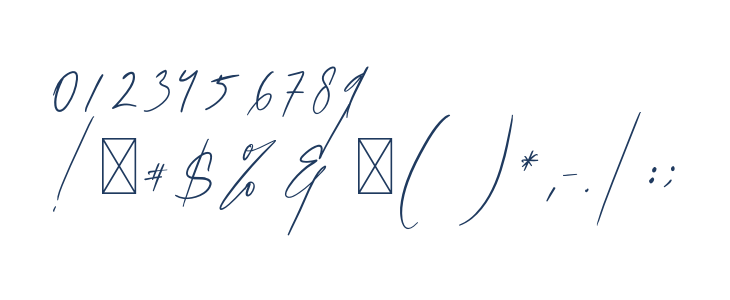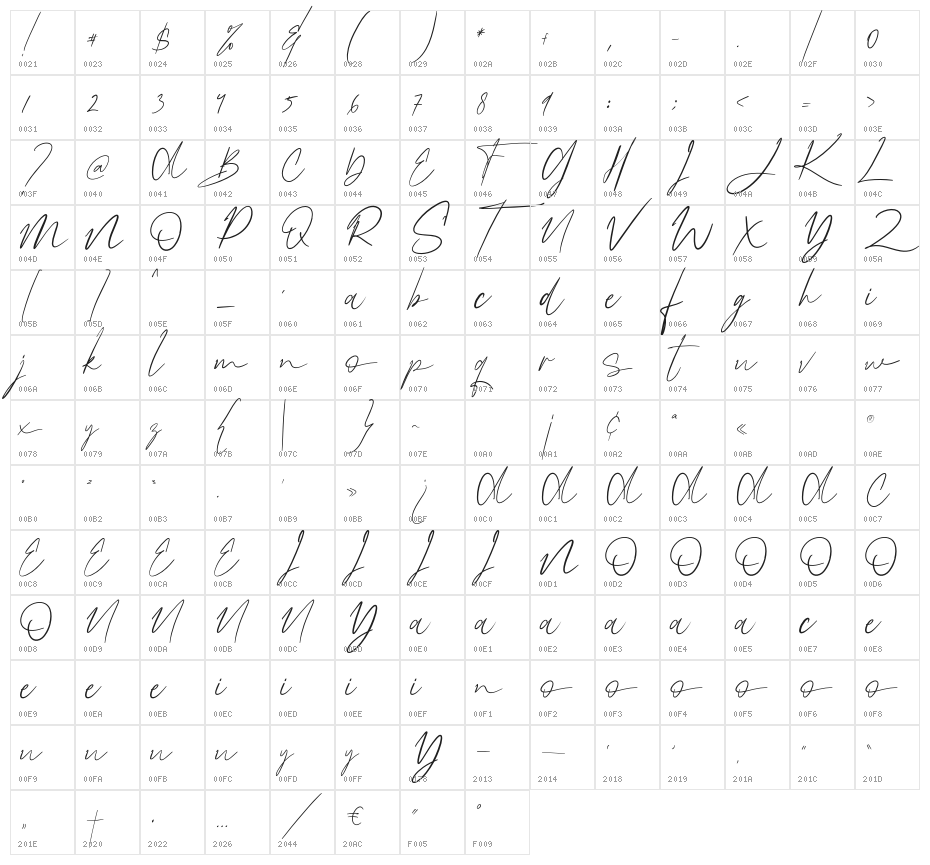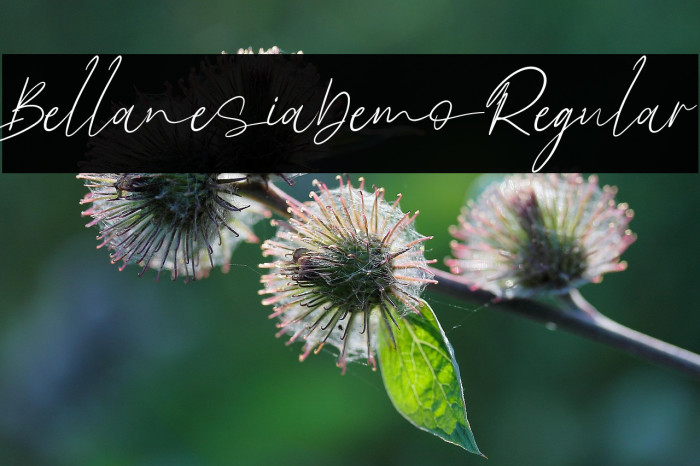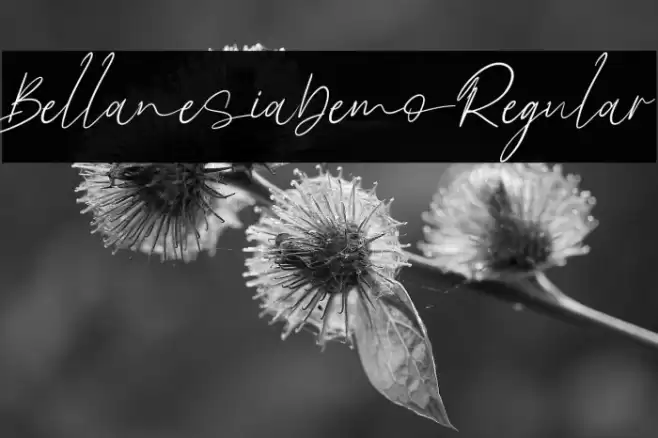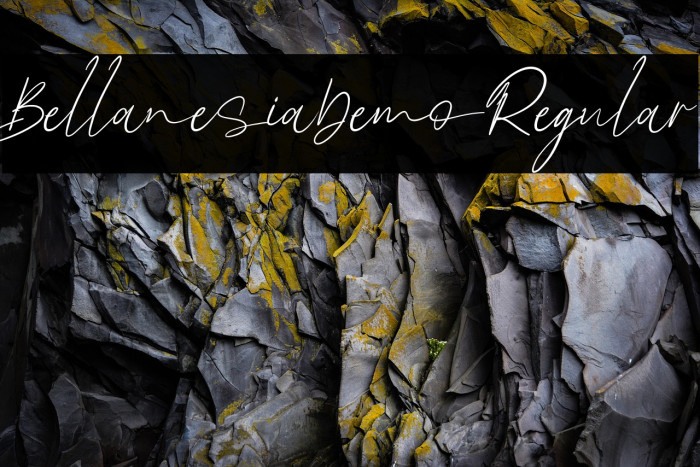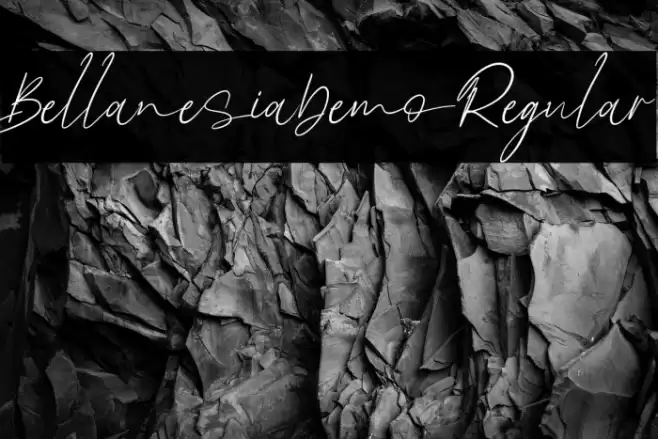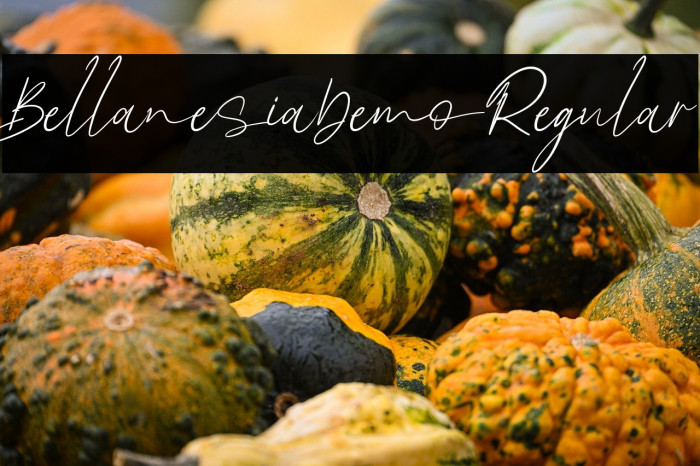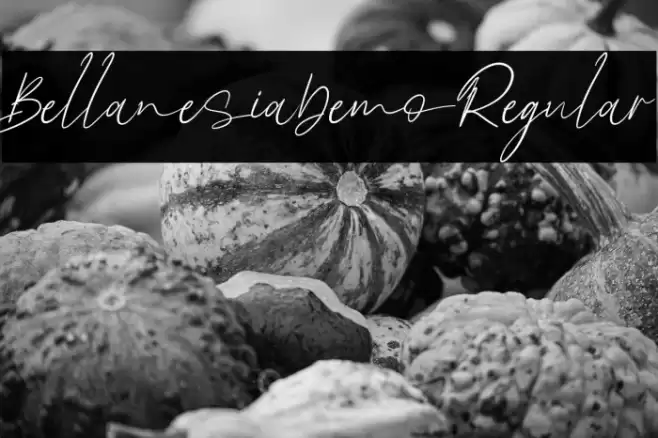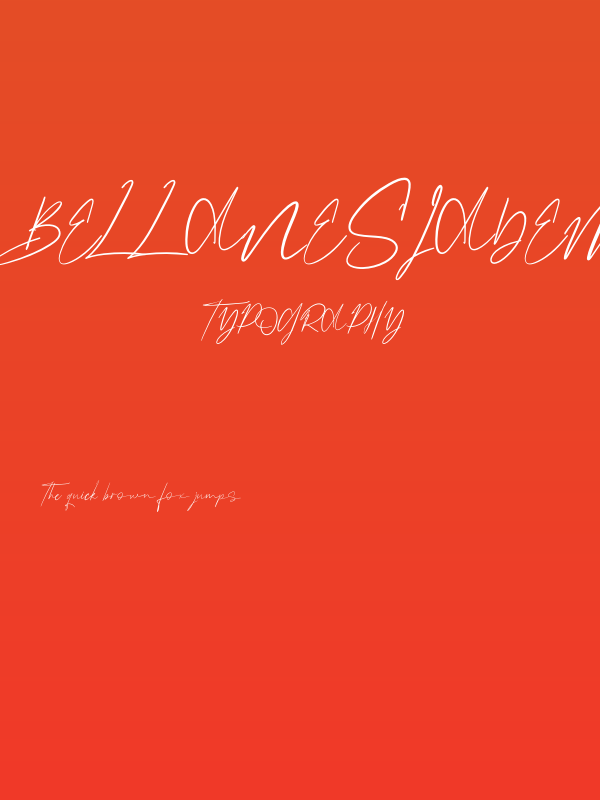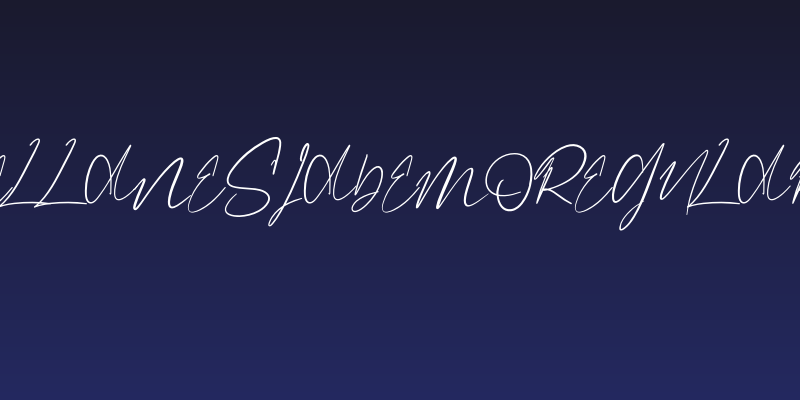
BellanesiaDemoRegular Font
BellanesiaDemoRegular Description
This font exhibits a dynamic and fluid handwritten style, characterized by its elegant and flowing script. The uppercase letters are tall and slender, with a slight slant that adds to the sense of movement and grace. Lowercase letters maintain a consistent flow, with some characters extending below the baseline, enhancing the handwritten feel. The numerals are distinct and maintain the same fluidity, while special characters are seamlessly integrated into the overall design. This font's organic and artistic nature makes it suitable for creative projects.